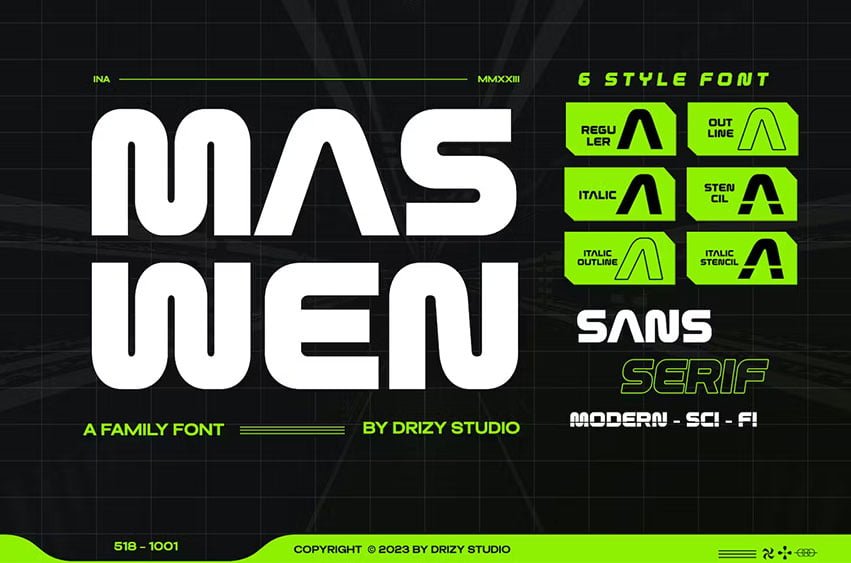
Maswen Display Font Family is a Modern Display Font Family Futuristic Bold, Maswen is a modern unique font family. With strong uppercase, this font is very suitable for inclusion in sci-fi & modern themes.
Maswen Features: Uppercase Numeral & Punctuation Multilingual Alternates